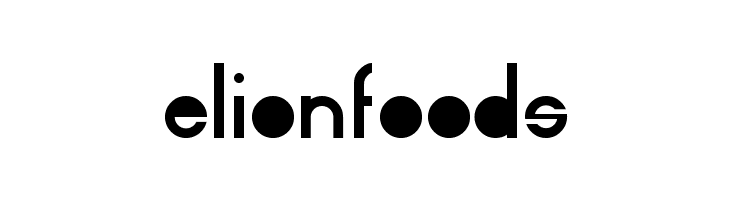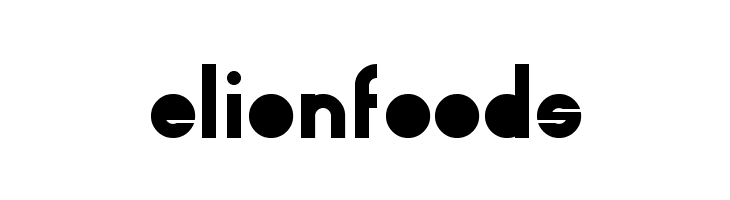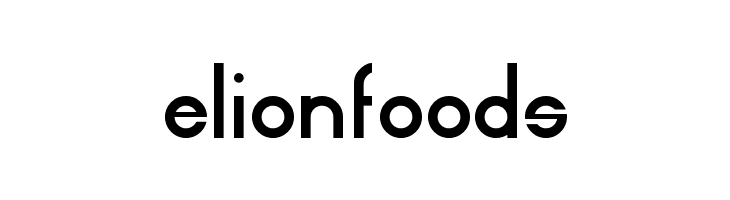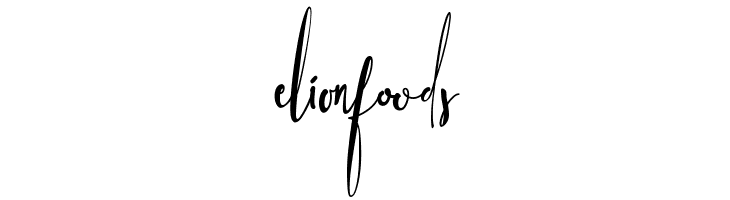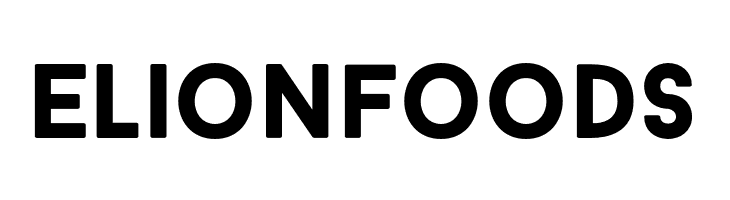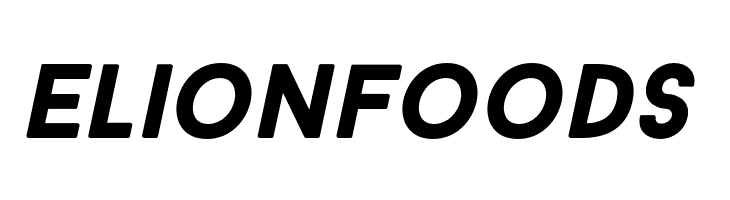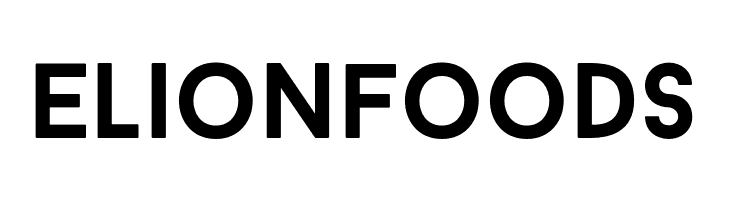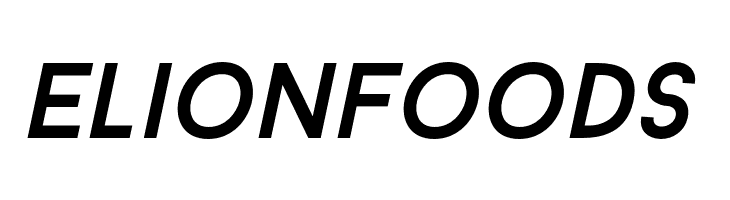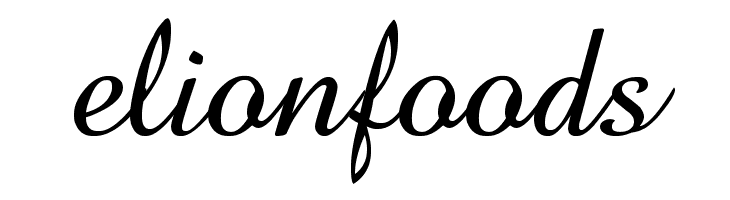
A bold, modern font with clean, geometric lines and uniform stroke width.
A bold, italicized font with a modern, geometric style.
A bold, geometric sans-serif font with a modern and assertive style.
A bold, italicized font with a modern, sleek, and slightly condensed style.
A modern, italic font with a sleek, geometric design.
An elegant and flowing script font with interconnected letterforms and artistic flourishes.
An ornate script font with elaborate swashes and Baroque-inspired elegance.
A modern, geometric sans-serif font with clean lines and uniform stroke width.
A bold, geometric sans-serif font with a modern and clean design.
A bold, geometric font with a modern and impactful style.